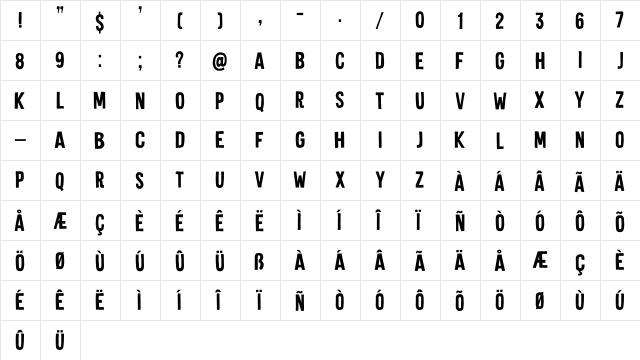
Silent Echo DEMO Regular
| Foundry | David Kerkhoff |
| Designer | David Kerkhoff |
Design Context for Silent Echo DEMO Typeface
Silent Echo DEMO offers clean, dependable letterforms without strong stylistic allegiance, making it a practical choice for designers who need flexibility.